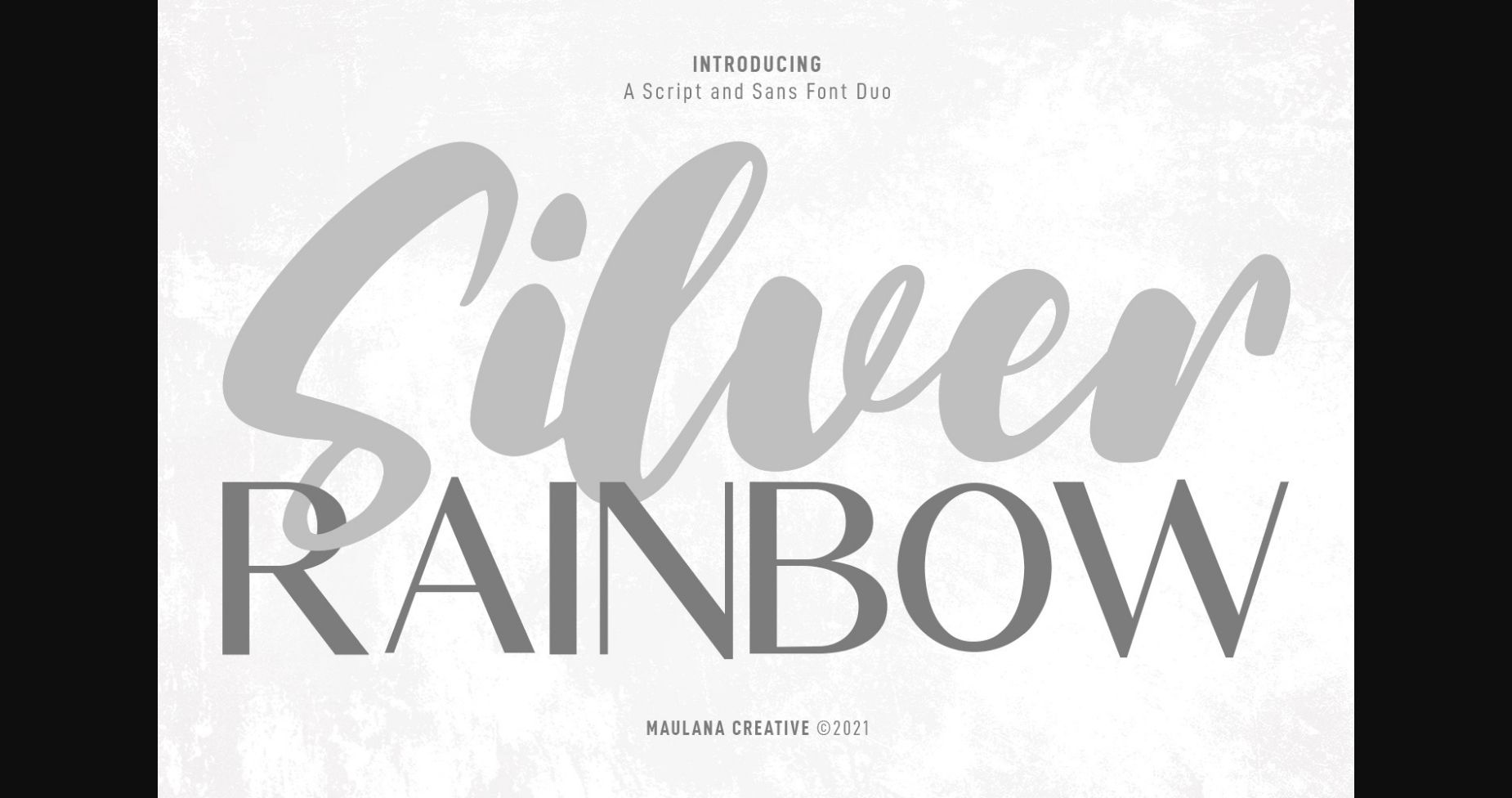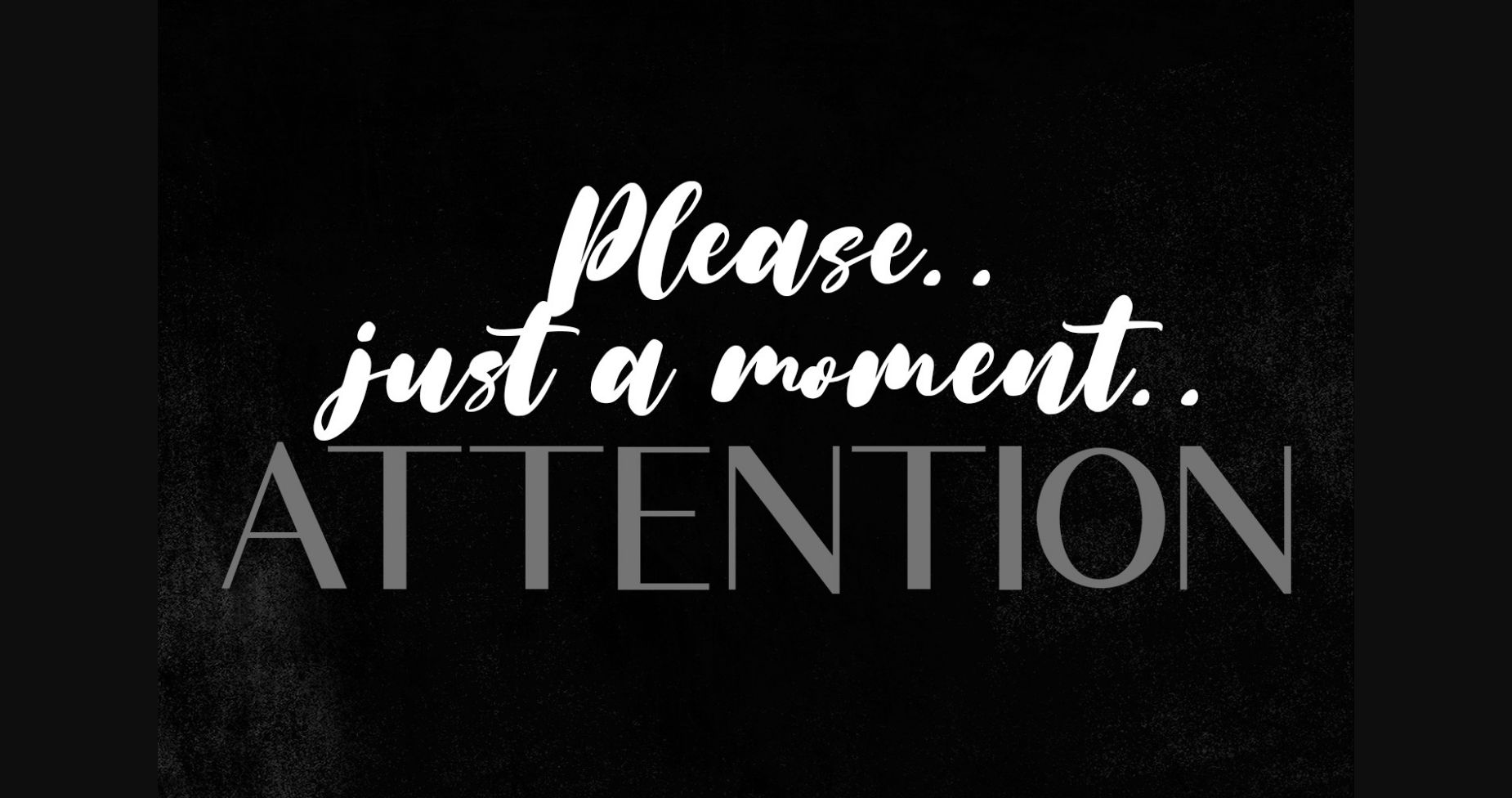
About Silver Rainbow Font
Silver Rainbow is a modern casual script and sans serif duo font perfect for logo design, social media posts, movie and book titles, and anything you wish to create. Make a stunning work with Silver Rainbow font.